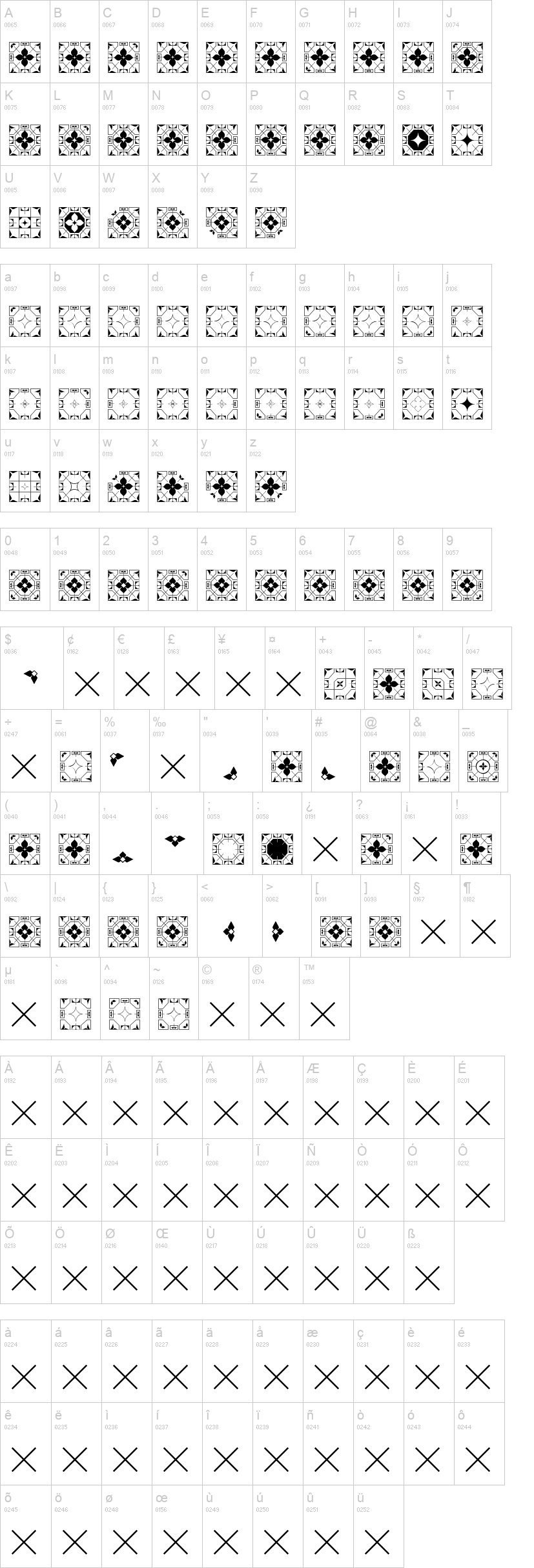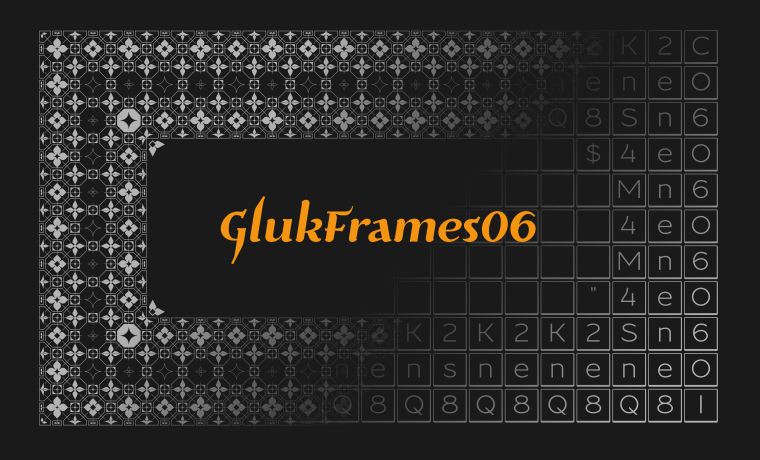
Note of the authorFont GlukFrames06 is a set of Elements for creating Frames and Patterns in .otf Format. Full set of Elements, Examples of use and Tips You find in PDF.
Attention: Experimental Set, correct work depend of software settings like: Line spacing, Text Alignment etc.